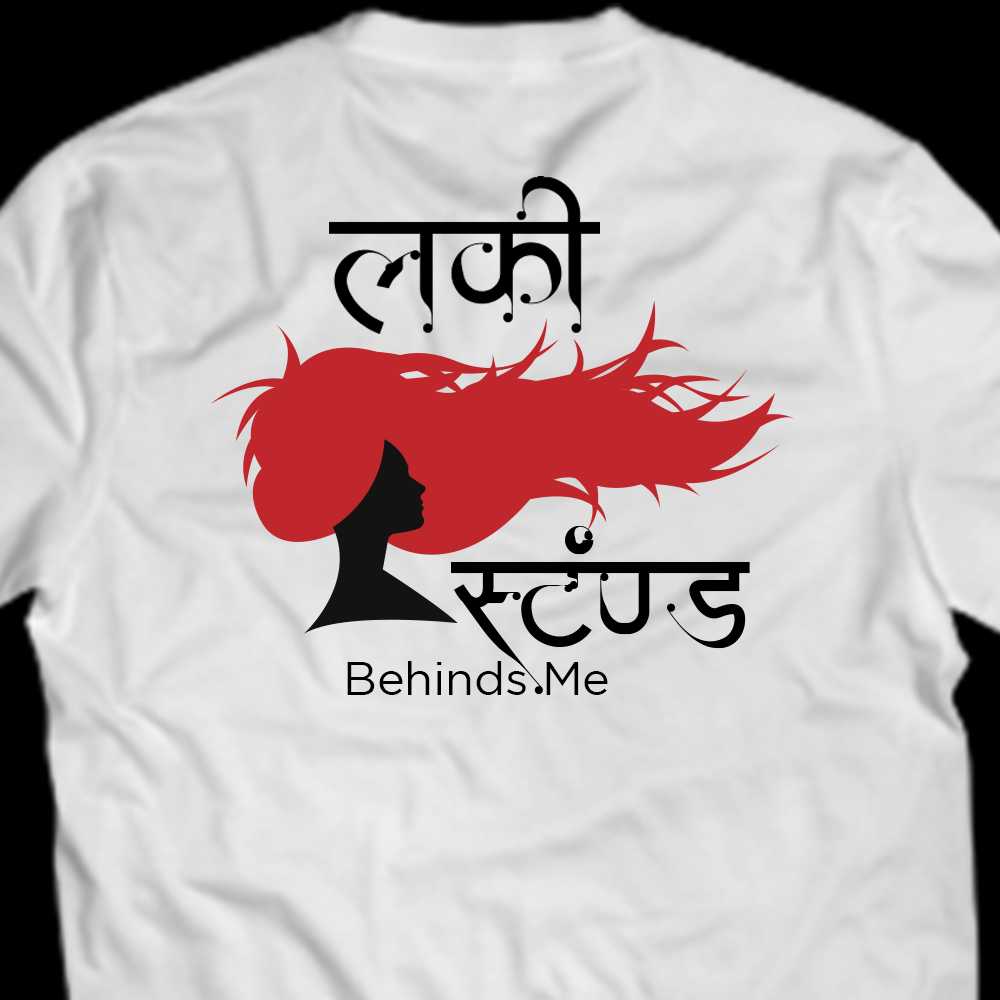
AMS Kangna
Add a touch of elegance and charm to your designs with AMS Kangna, a Hindi and Marathi font that exudes beauty and grace. Whether you're seeking free AMS fonts, exploring AMS Kangna font download options, or looking for AMS Hindi font download choices, AMS Kangna will elevate your designs.
About AMS Kangna Font
Add a touch of elegance and charm to your designs with AMS Kangna, a Hindi and Marathi font that exudes beauty and grace. Whether you're seeking free AMS fonts, exploring AMS Kangna font download options, or looking for AMS Hindi font download choices, AMS Kangna will elevate your designs. This decorative font combines elegance with functionality, making it perfect for various design applications.
AMS Kangna is a professionally crafted decorative typeface that brings clarity and style to your projects. Designed with attention to detail, it supports hindi and marathi characters flawlessly.
Whether you're working on wedding-materials, invitations, logos, or other creative projects, AMS Kangna delivers consistent performance across both digital and print media. This carefully designed typeface ensures readability and visual appeal in all your design work.
AMS Kangna excels in various design scenarios. Here are the most suitable applications:
About AMS Kangna Typography Style
AMS Kangna is a professionally crafted decorative font that exemplifies modern Hindi typography design. This free font is perfect for designers seeking professional branding and logo design projects.
Available in 1 weight and supporting hindi, marathi scripts, AMS Kangna offers exceptional versatility for both digital and print media. Whether you're working on wedding-materials, invitations, logos, this carefully designed typeface ensures consistent quality and professional results across all your typography projects.